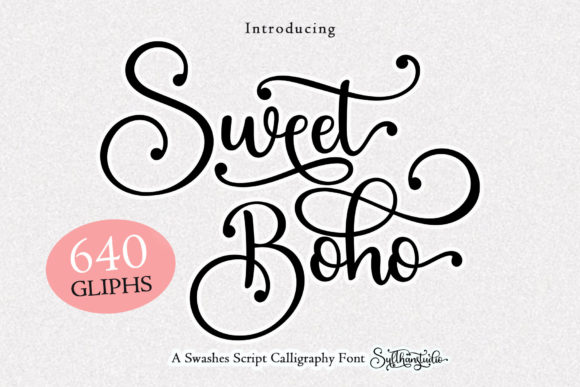
Introducing Sweet Boho Font, the latest addition to our collection! This elegant and stylish script font is created by Sulthan Studio and is perfect for those who crave a touch of bohemian flair in their designs.
Sweet Boho Font is a distinct and graceful font that will make your designs stand out from the crowd. With its ravishing style, you'll fall in love with the effortless elegance it exudes.
One of the best things about Sweet Boho Font is that it's PUA encoded, which means you can easily access all the glyphs and swashes with ease. This feature makes it perfect for all sorts of designs, including logos, invitations, and branding materials.
But what makes Sweet Boho Font truly unique is its ability to evoke emotions. Its flowing lines and graceful curves create a sense of calm and serenity, making it ideal for designs that aim to convey a peaceful and harmonious message.